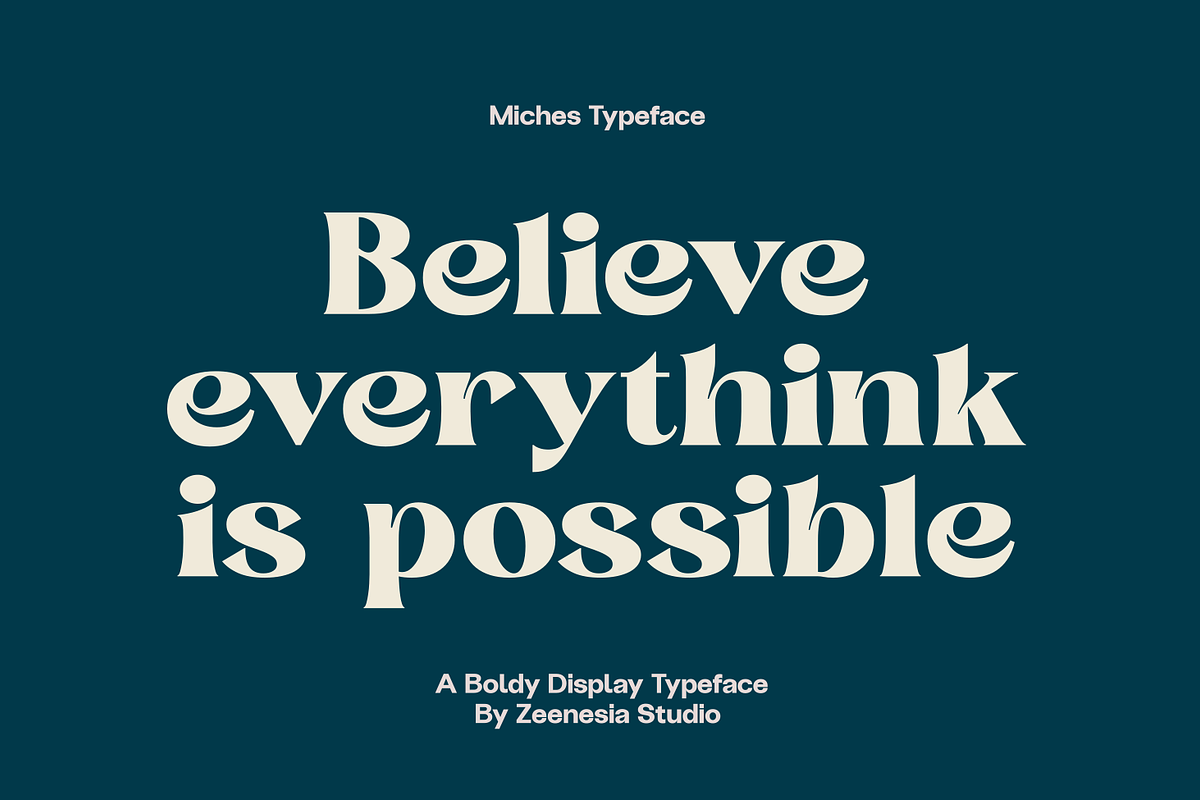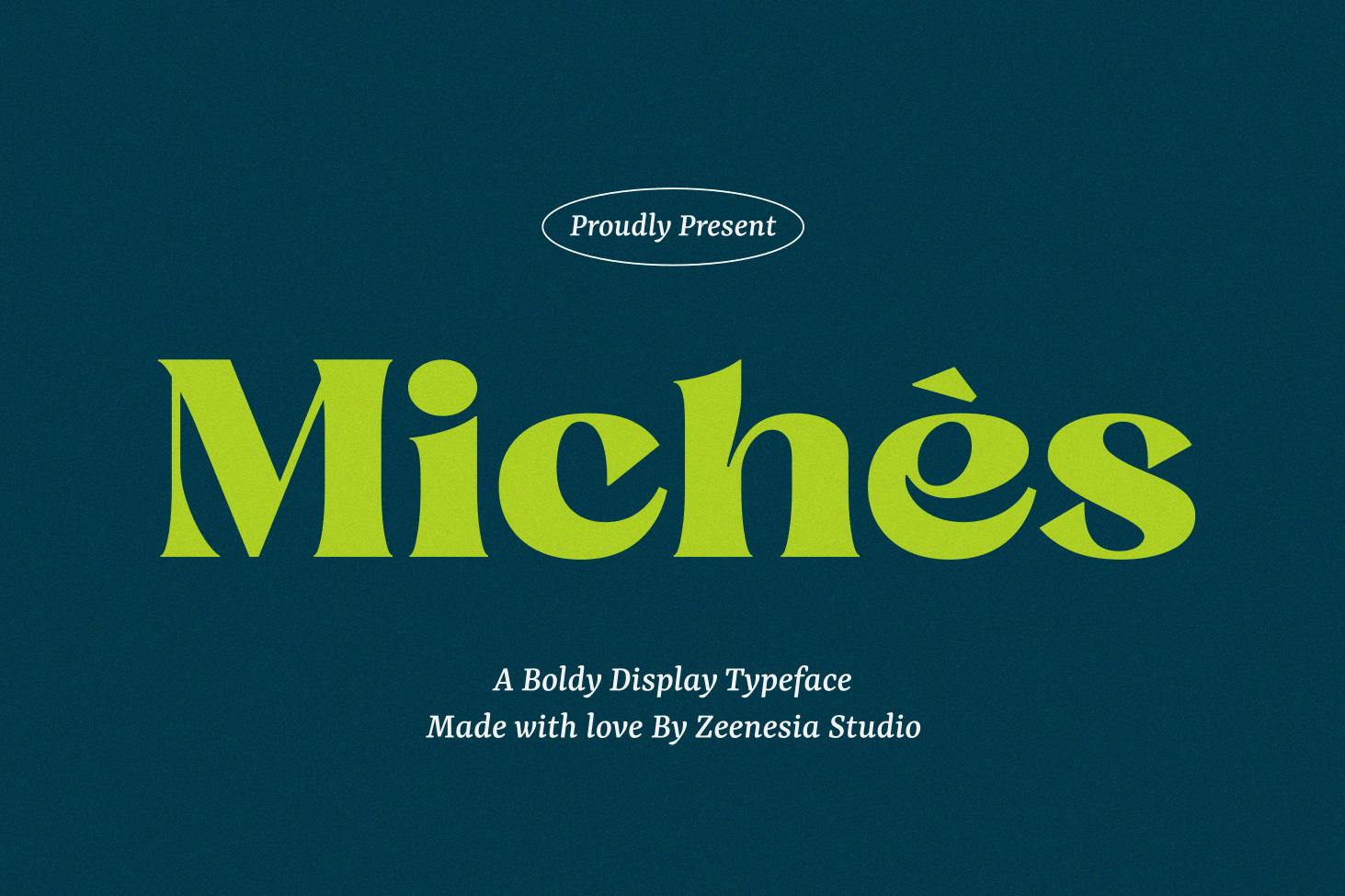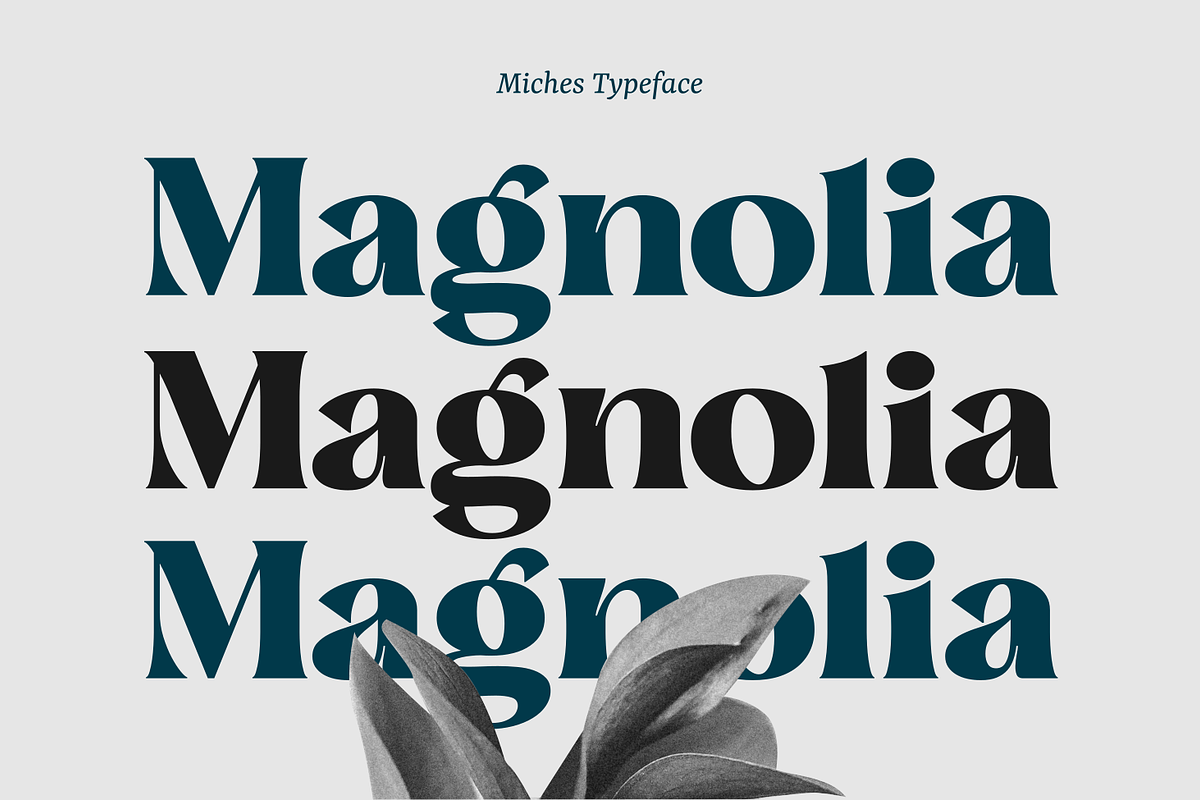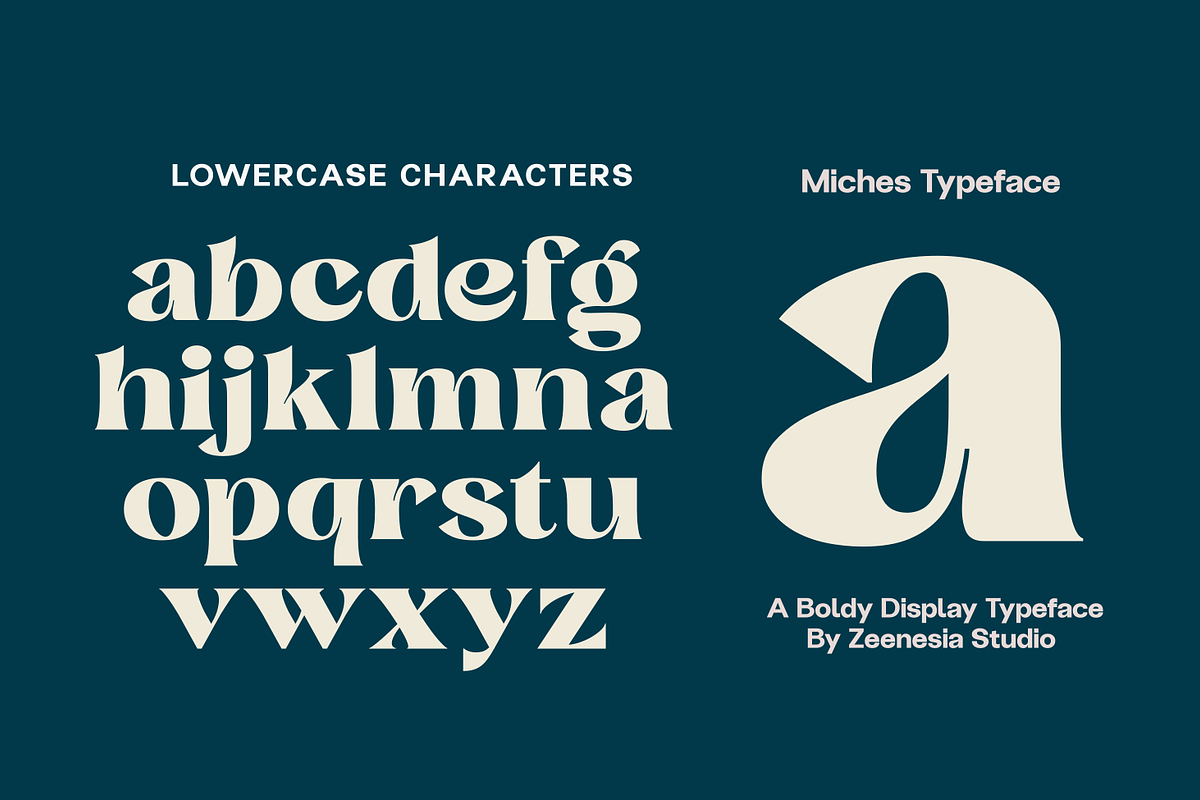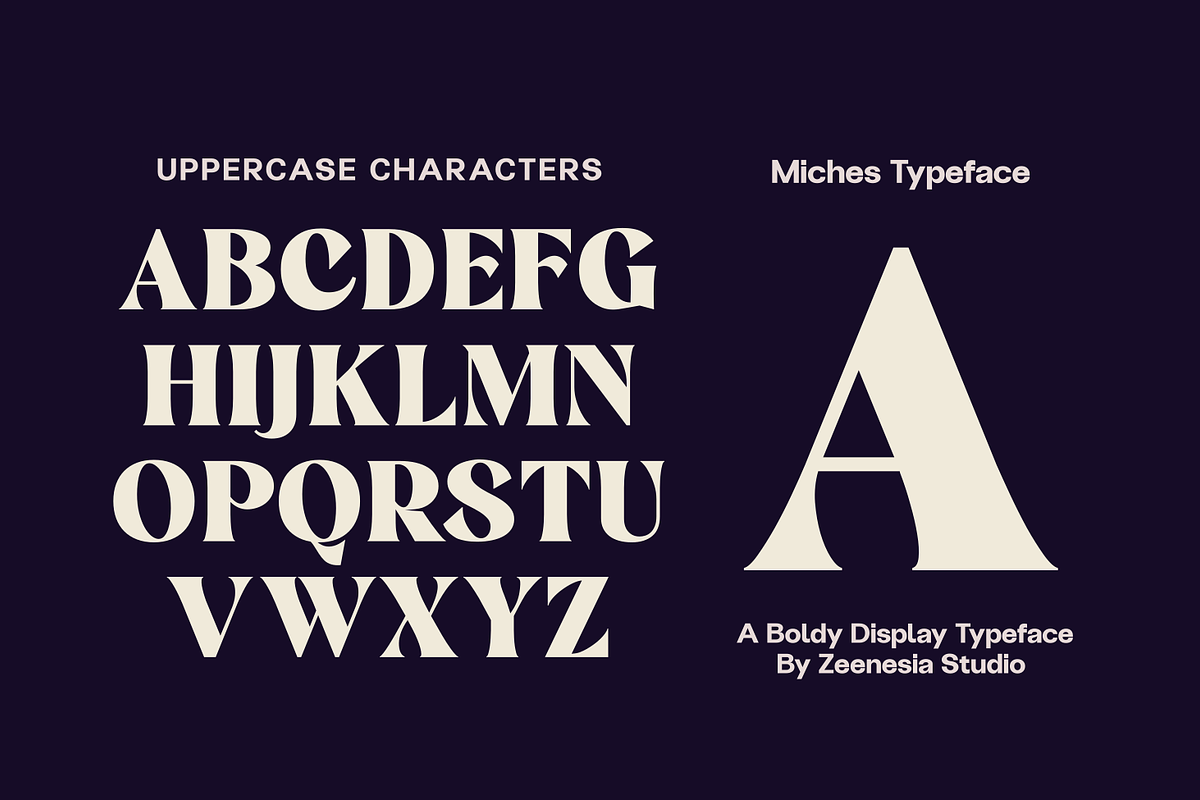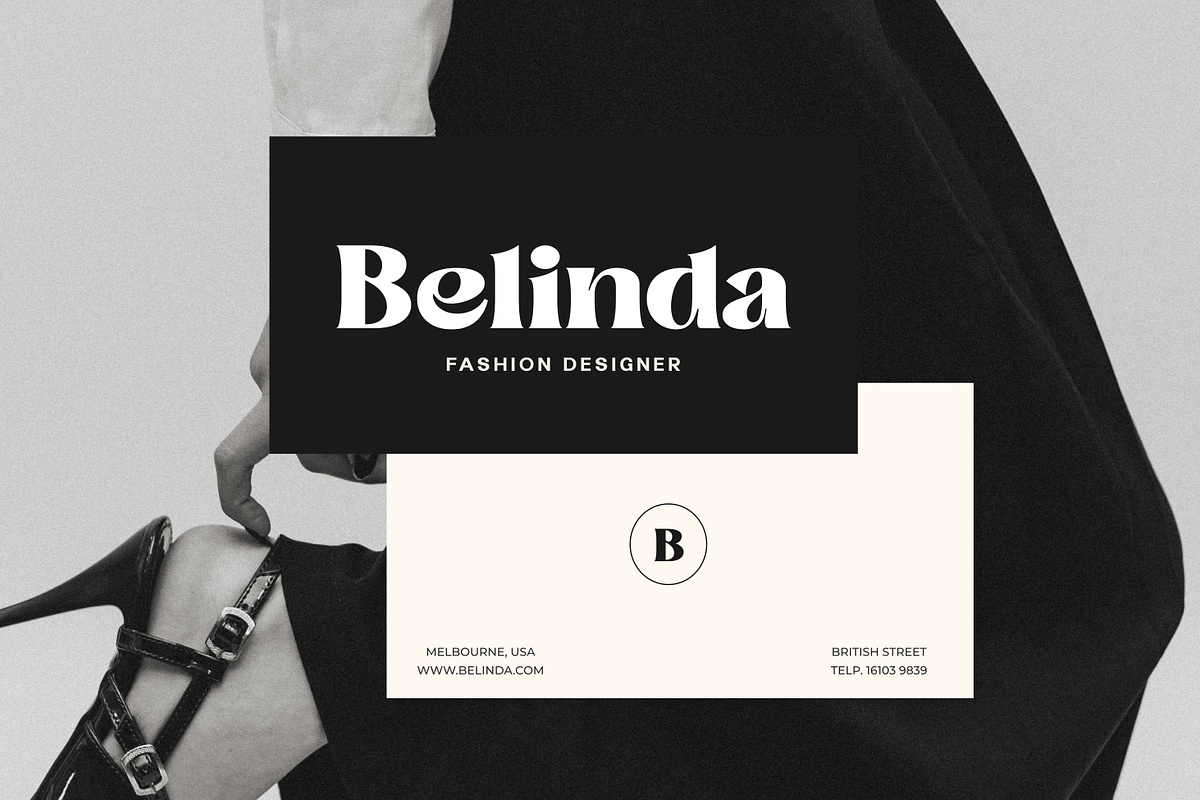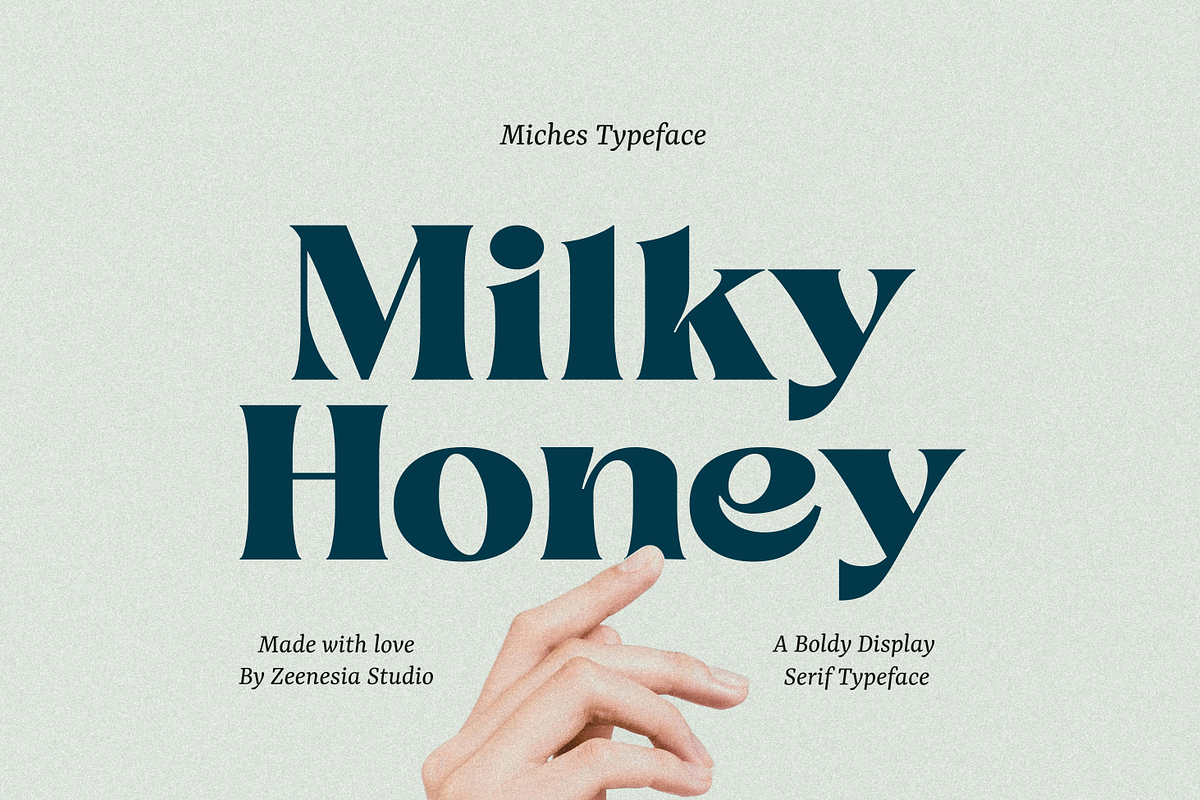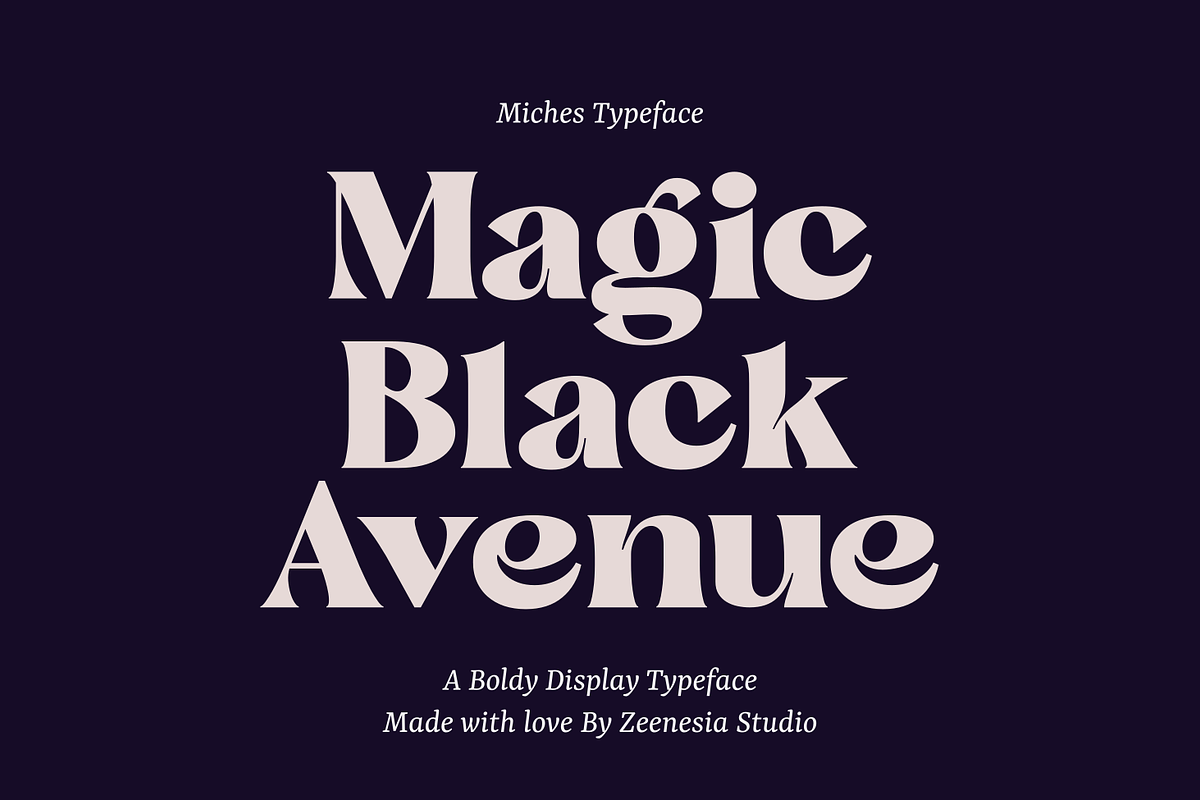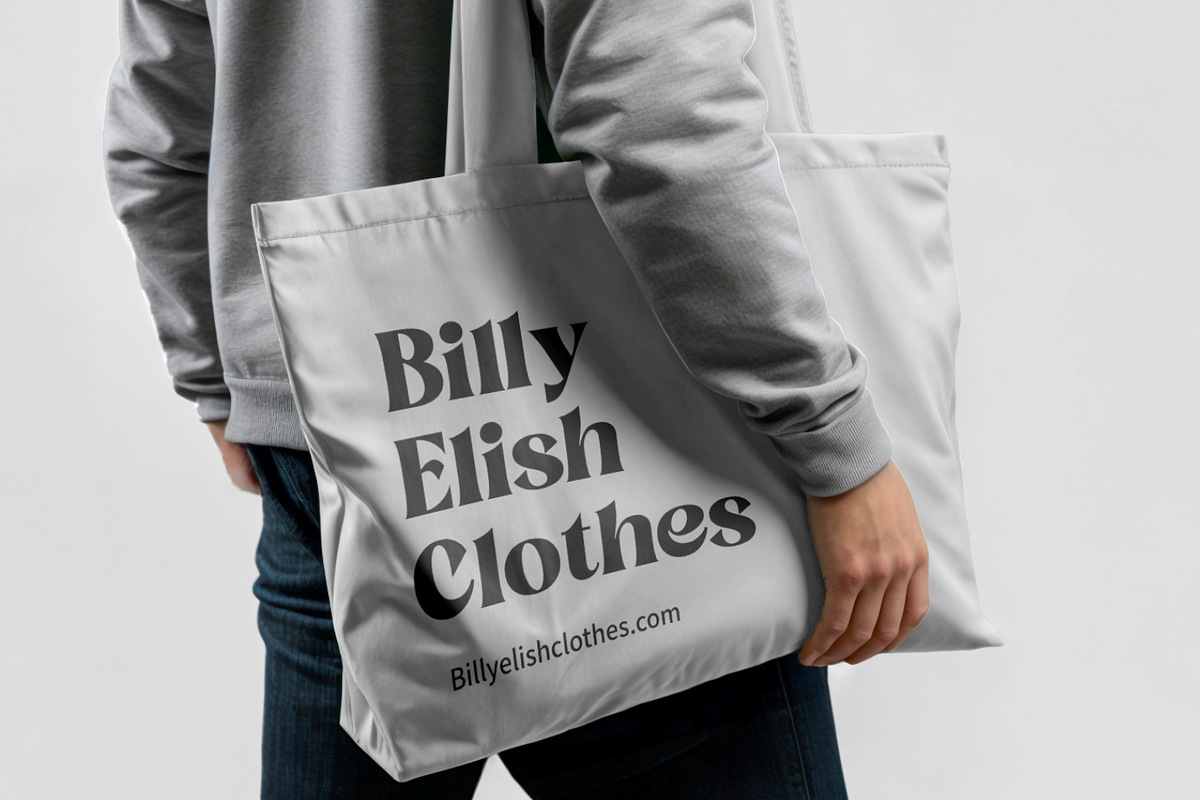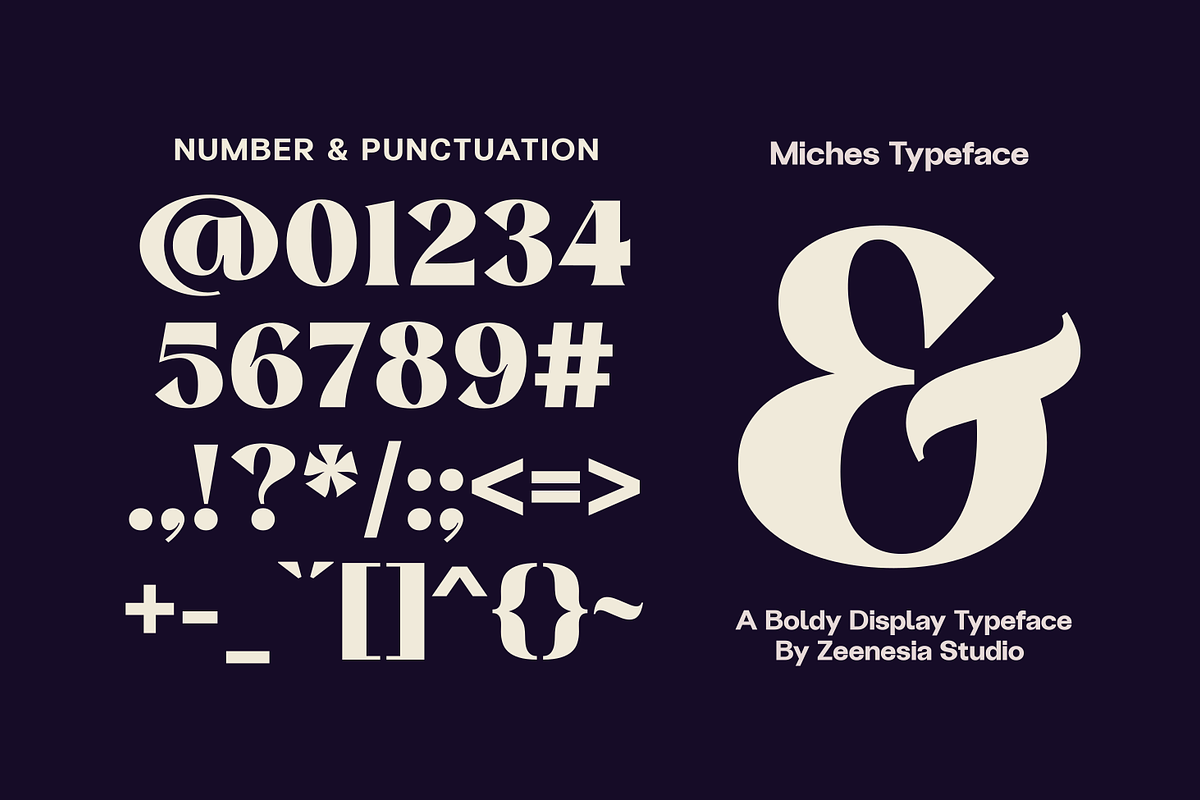
Miches Font
Introducing Miches!! Miches Serif Font commands attention, a seamless blend of modern sophistication and vintage elegance. With its sturdy character and soft flourishes, Miches makes a striking statement at large sizes, a truly versatile choice for diverse design needs. From framing captivating editorials and creating compelling logos, to enhancing website visuals or adorning product packaging. It's equally stunning as a fashion label's signature font or gracing the headers of a trendy magazine. With Miches, you also have the flexibility to overlay stylish text atop any background picture, giving your designs a remarkable, polished finish. This font, in essence, embodies a timeless quality, bringing both a clear and bold presence to any creative application it's applied to.